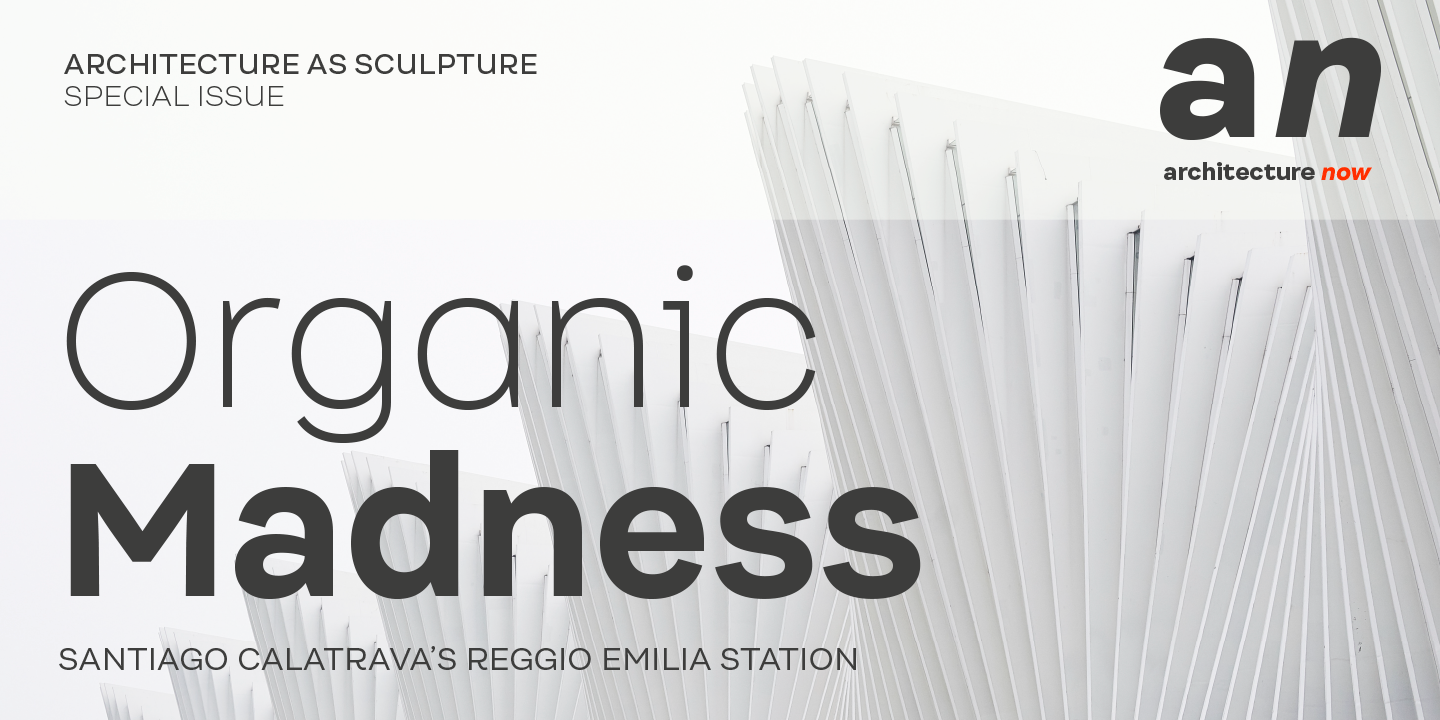
Internacional Font is ideal for global branding, international organizations, multilingual publications, corporate communications, diplomatic materials, cultural institutions, and worldwide marketing campaigns. This versatile typeface excels in cross-cultural design applications.
Internacional Font is exciting because it embodies universal design principles with its carefully balanced letterforms that maintain consistent readability across multiple languages and writing systems. Its neutral yet distinctive character creates effective communication bridges across diverse cultural contexts.
The Internacional Font family includes comprehensive weight ranges from Light to Black, complete with italic styles and extended character sets supporting multiple languages. This extensive collection ensures optimal performance for international design projects requiring broad linguistic support.
Internacional Font Free Download provides access to a thoughtfully designed typeface that addresses the challenges of global communication through typography. This sophisticated font combines geometric clarity with humanist warmth, resulting in letterforms that are both technically precise and culturally neutral. The typeface features extensive language support and carefully optimized spacing that ensures consistent performance across different alphabets and writing systems. Its professional aesthetic makes it particularly suitable for organizations operating in international markets where clear, reliable communication is paramount. Internacional Font delivers exceptional versatility for multicultural projects while maintaining visual coherence and brand consistency. The font's universal appeal and technical excellence make it an essential tool for designers working on projects that require effective communication across linguistic and cultural boundaries, ensuring messages resonate with diverse global audiences.